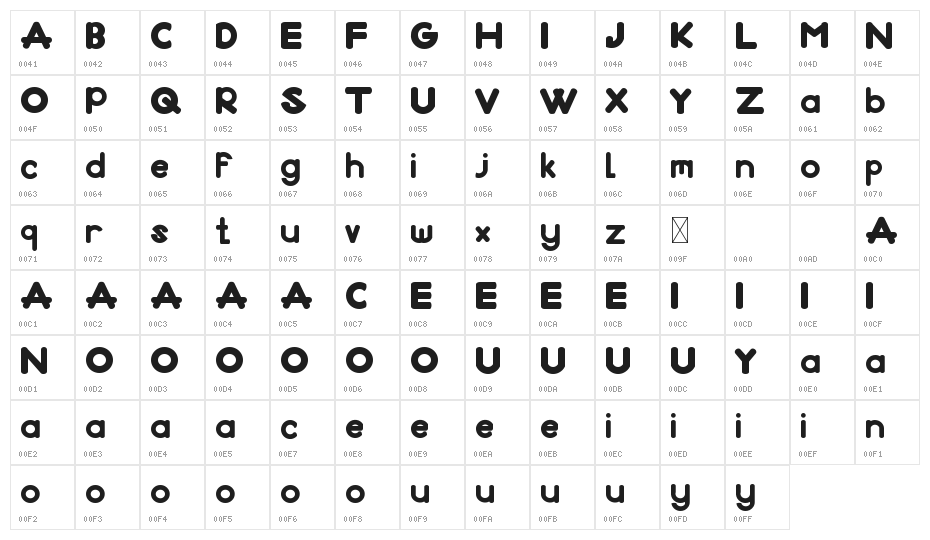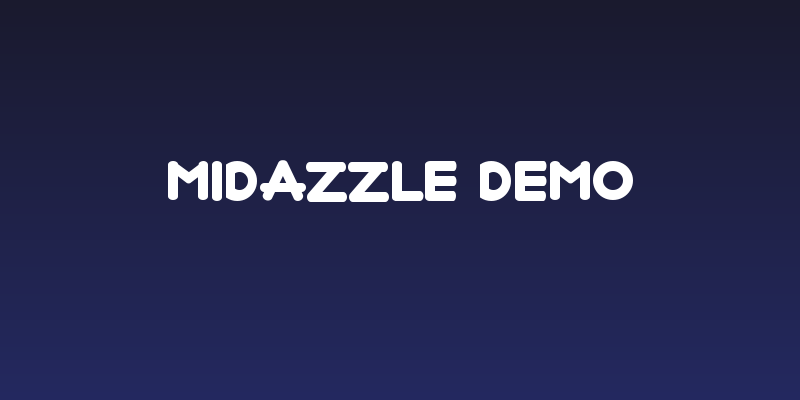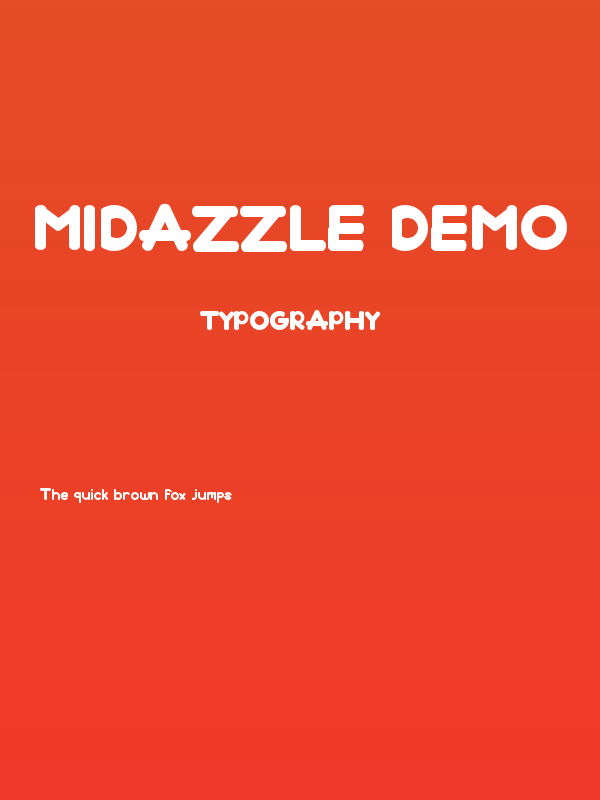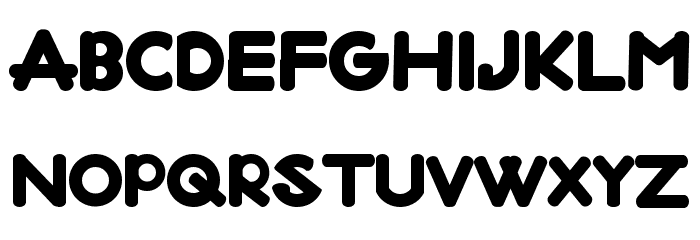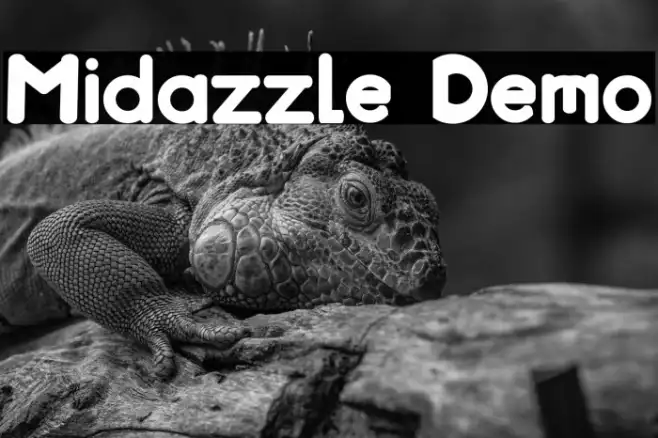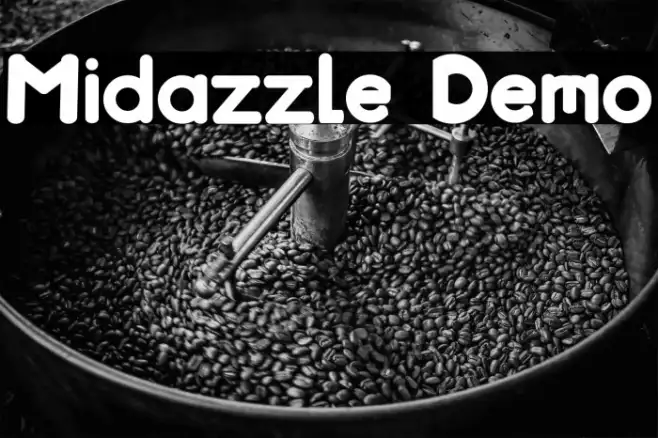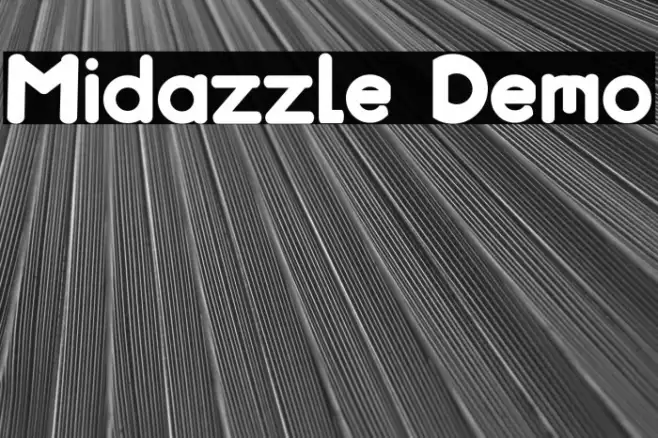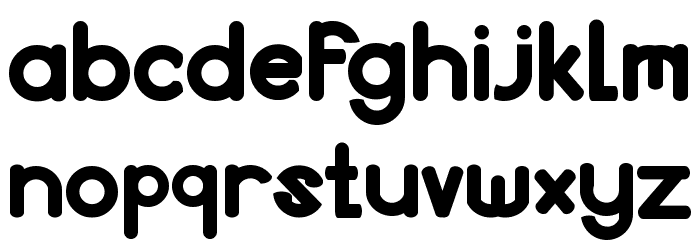
Midazzle Demo Font
Midazzle Demo Description
This playful and bold font features rounded edges and a bubbly appearance, giving it a friendly and approachable feel. The characters are evenly spaced with a consistent thickness, making it easy to read while maintaining a whimsical style. The uppercase and lowercase letters are well-proportioned, and the numbers and special characters are designed to match the overall aesthetic. This font is ideal for projects that require a fun and engaging look, such as children's books, playful branding, or creative posters.